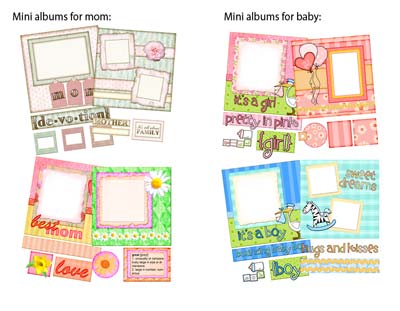
FOREVER
FAMILY BUNDLE |
includes them all.
Each family member has their own beautifully designed alphabet – the
Lettering Delights version of a color font – and
Journaling Delight set, complete with clip art embellishments.
Each design has a warm feel and vintage style to perfectly
compliment memories from the past or present.
3.
States Bundle – MI, MN, MS |
What do the Great Lakes
State, the North Star State and the Magnolia State
have in common? They are all featured in the
newest States
Bundle – MI,
MN, MS. The unique landscapes and cultures of Michigan,
Minnesota and Mississippi are perfectly depicted in these
one-of-a-kind alphabets and Journaling Delight designs.
As we all are beginning
to enjoy the fresh newness of spring, we're bringing someone
new and fresh to our team at Lettering Delights. Jessica
Sporn is our newest artist and I'm sure you are going to
love her style. Watch for Jessica's all new alphabet and
Journaling Delight designs!
Jessica's inaugural design, Cool
School, perfectly combines
true-to-life images like school buses and crayons, with
a touch of delightful whimsy. Crisp and colorful, Jessica's
style shines through in this new alphabet and Journaling
Delight, complete with title boxes, tags, photo boxes and
great clip art!
Jessica's Cool School alphabet and Journaling Delight
| Lettering
Delights Mini Albums are a great way to quickly and beautifully create an album
to commemorate a special occasion or special person. Each
Lettering Delights Mini Album includes everything you need
to create a digital or printed 6x6 album. Each album includes
16 different page layouts along with added clip art embellishments
you can use to add your own personal touches. Digital albums
include over 60 .png graphic images for ultimate flexibility.
as well as four all new Mini Album designs. Choose from
two new Mini Albums to honor Mom or create a precious Mini
Album keepsake celebrating a new arrival.